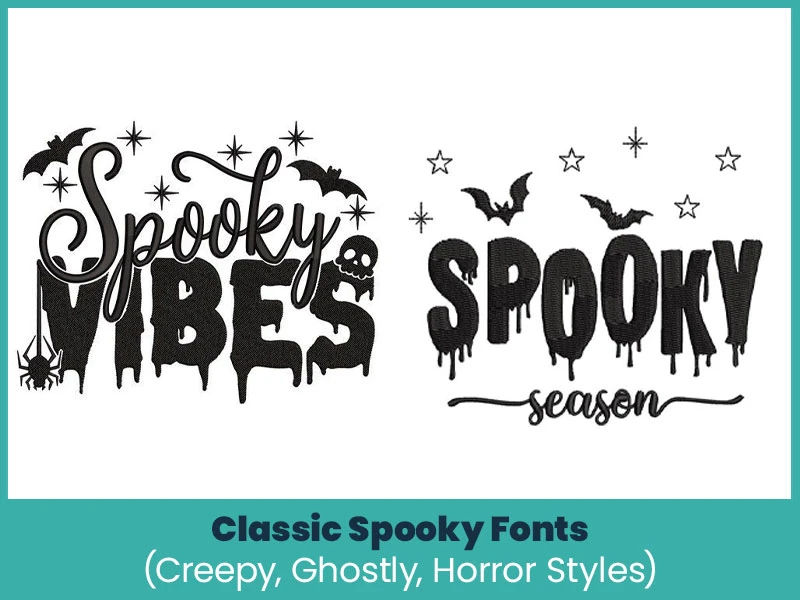
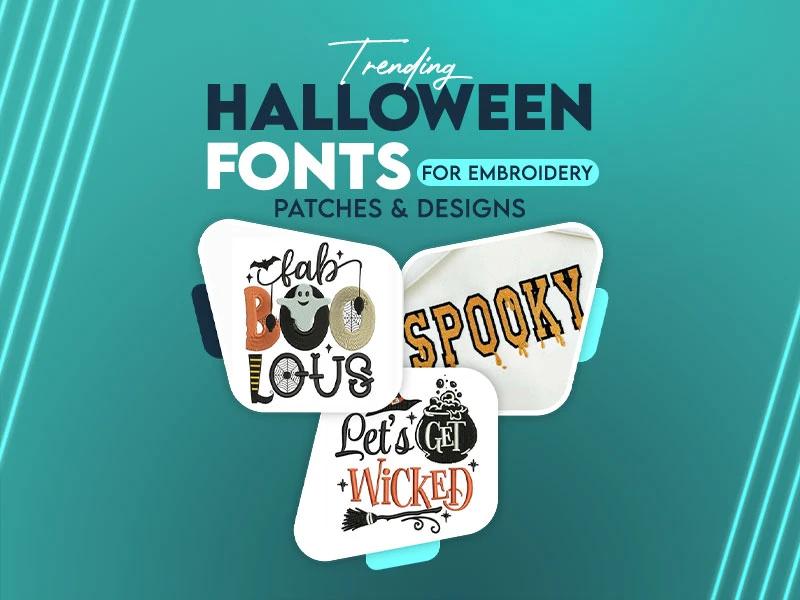
Everyone is excited for Halloween and wants to get designs that will be attractive but have you ever noticed that Halloween fonts are as important as designs because fonts play a major role as designs play their role. Halloween month is the perfect time to get creative, spooky, fun and identify fonts that will match your designs. If you’re into embroidery digitizing, choosing the right font can make your Halloween patches and designs truly stand out.
When picking a Halloween font, you want something that evokes the mood (spooky, playful, retro) but also behaves well when stitched. Here are 4 font categories that are trending nowadays:
These fonts use sharp edges, dripping lines, or irregular shapes to evoke horror and chills. Think letters that look like melting wax, ghostly silhouettes or jagged cuts. They’re great when you want to give your patch a haunted and dramatic feel.
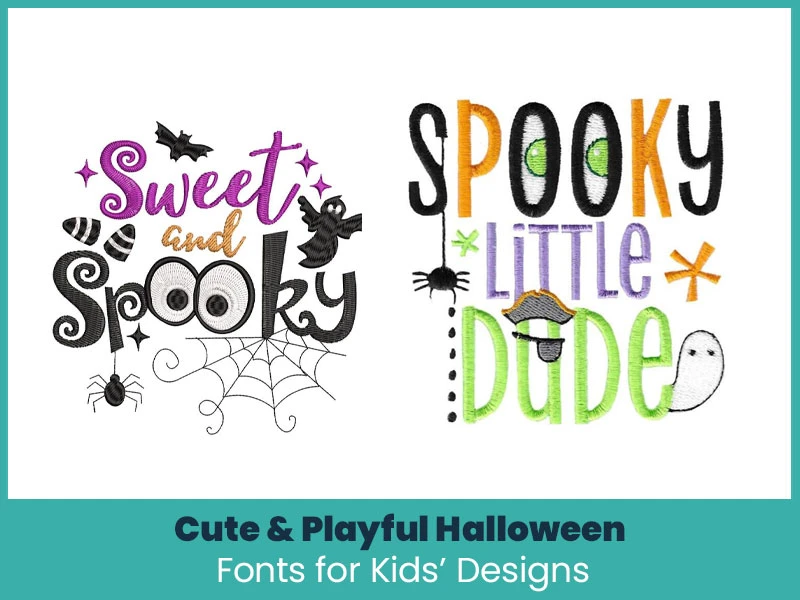
Not every Halloween patch needs to scare. For kids’ costumes, treat bags or playful decor, fonts that mimic bubbles,pumpkins or even cartoonish ghosts work well. They’re friendly but still festive.
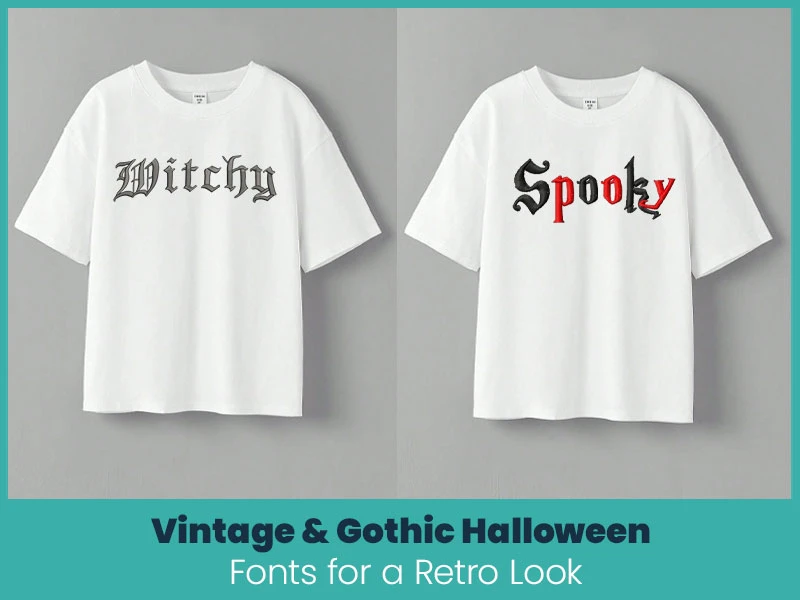
Classic Gothic or Victorian-style fonts are making a comeback. These fonts often use serif edges, ornamental strokes and a worn feel. They pair nicely with vintage Halloween elements (like old-timey guests, black cats, or bats).
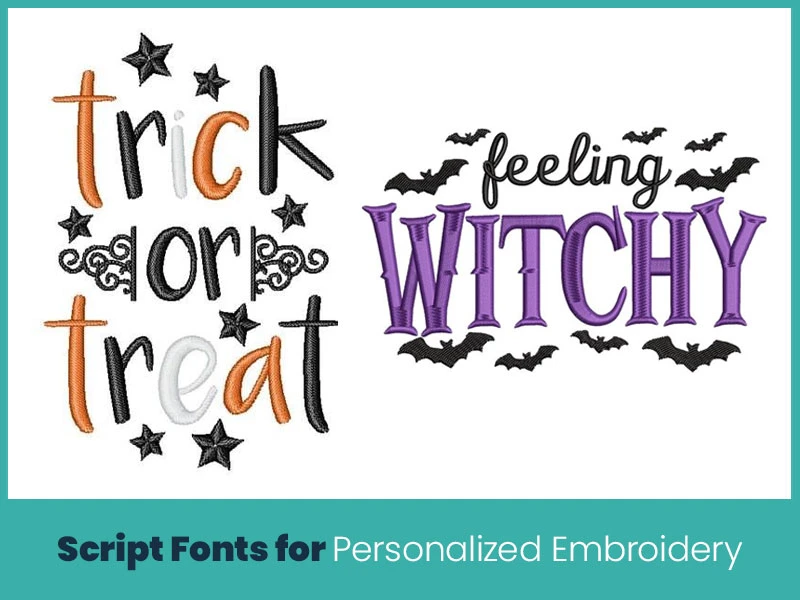
Script fonts add elegance and personalization. If you want to write a name or a phrase (“Trick or Treat,” “Witchy Wishes”), a well-designed script font can give it a graceful look. Just make sure the strokes aren’t too thin or too tight (we’ll talk more about that below).
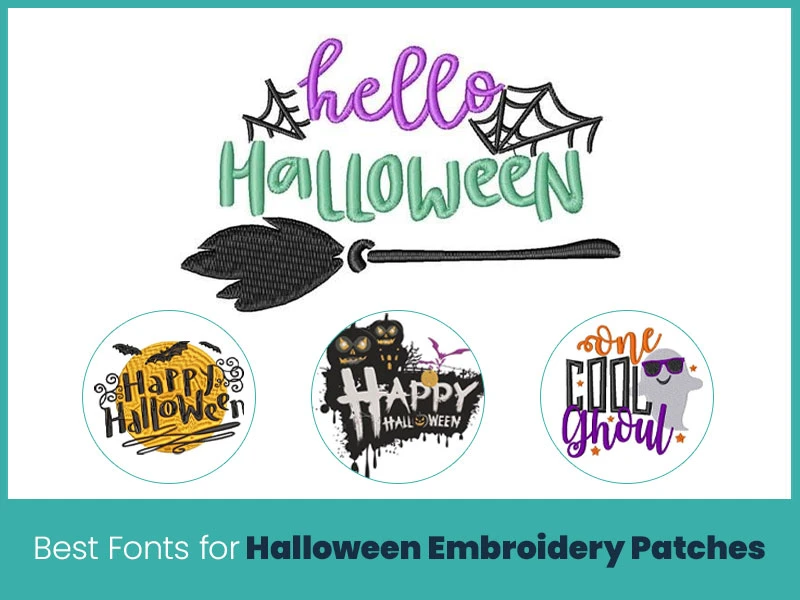
Now that you know what styles are trending, here are factors to consider so your designs stitch cleanly and look good on fabric.
Some fabrics (like fleece, canvas, or felt) have texture. Fonts with heavy fills or bold strokes tend to show up better. Fine outlines might disappear. Always test fonts on scrap fabric to see how they look.
Embroidery machines struggle with extremely thin lines, tight curls or overlapping strokes. Choose fonts where strokes have a minimum width so that the thread doesn't skip and avoid very close details. A clean, open design will stitch more reliably.
Keep text readable: on small patches ( 2" or 3"), avoid long words or tight scripts.
Leave margin around the text so stitches don’t touch patch edges.
Use contrasting thread colors so letters stand out from the background.
When layering (text over shapes), make sure the top text has enough clear space.
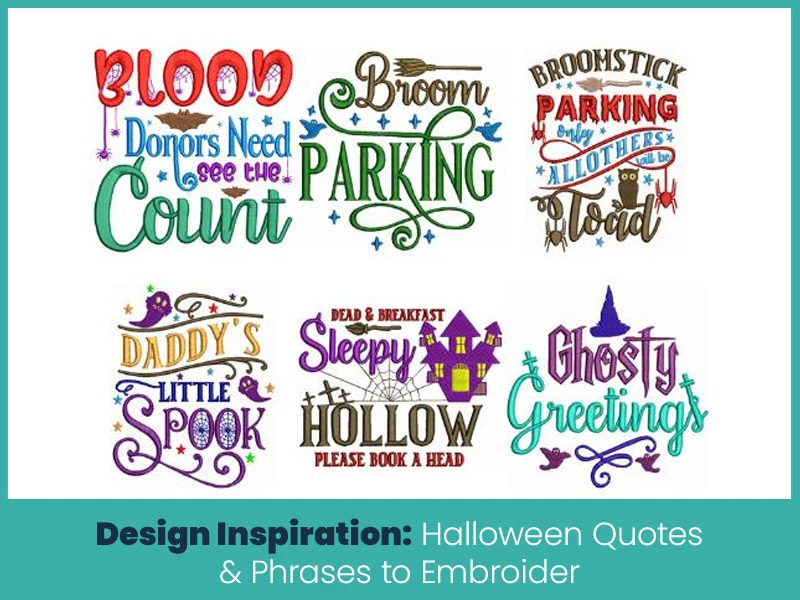
Here are ideas to spark your creativity when pairing fonts and text:
- BOO
- Eek
- Creep it real
- Witch’s Brew
- Resting Witch Face
- Pick Your Poison
- Boo Crew
- If You’ve Got It, Haunt It
- Wrap text around pumpkin designs.
- Split a phrase above and below a bat or spider web.
- Stack words (e.g, Trick / Treat) vertically.
- Use curved text over a moon shape
Even with a great font, errors in design choices can ruin the final result. Watch out for:
If letters are too thin, stitches may skip or the thread may bunch. Make sure strokes have enough width.
Dense fabrics require simpler designs. On loosely woven fabrics, very detailed fonts may distort.
Mixing more than two typefaces can confuse people. Stick to one primary font and maybe one accent for emphasis.